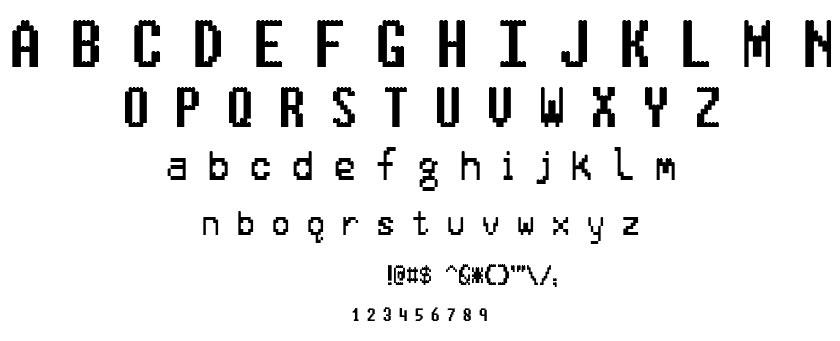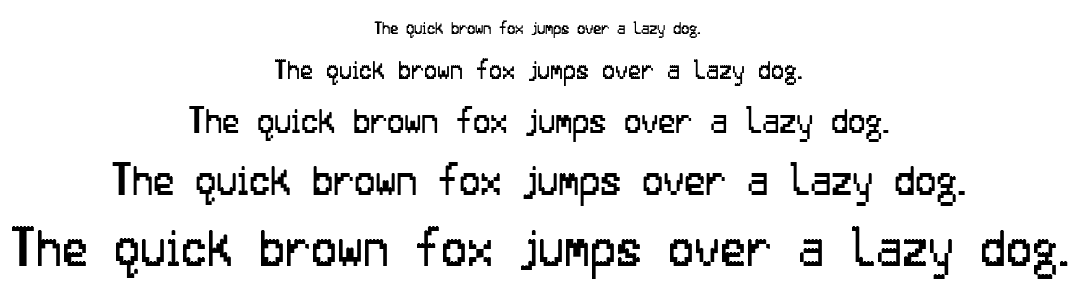
Lego Brix font.
I was playing LEGO with the six year old son and we started making letters out of the bricks using different colors, we tried to use just the 1,2,4 and 6 sized bricks, it was then I had this great idea for my LEGO BRIX font.